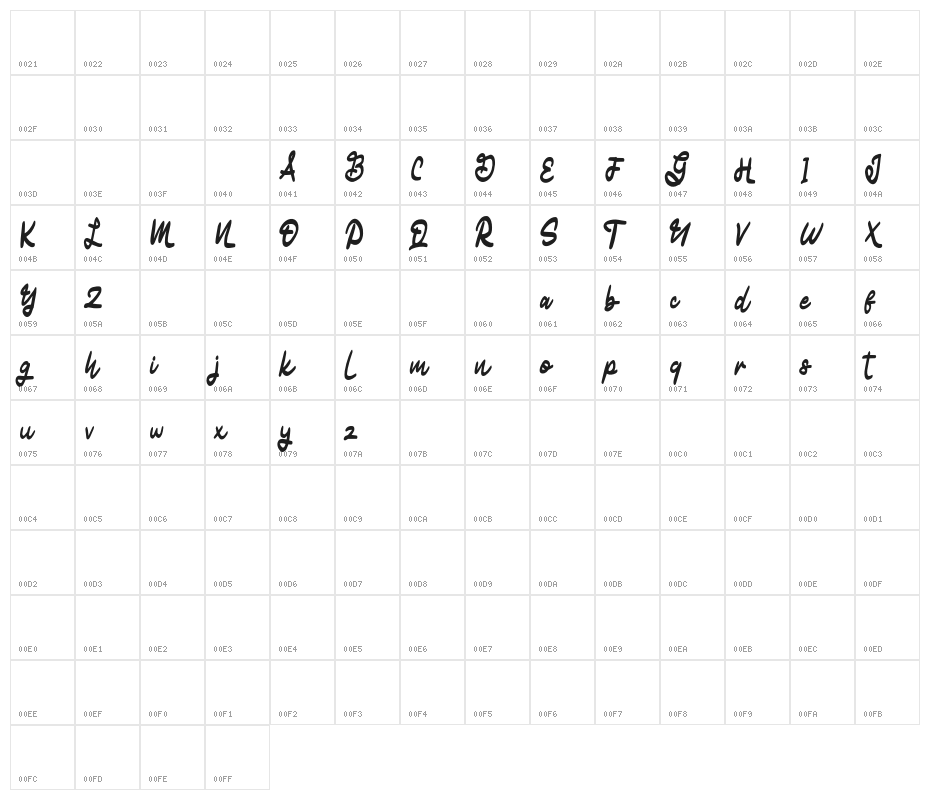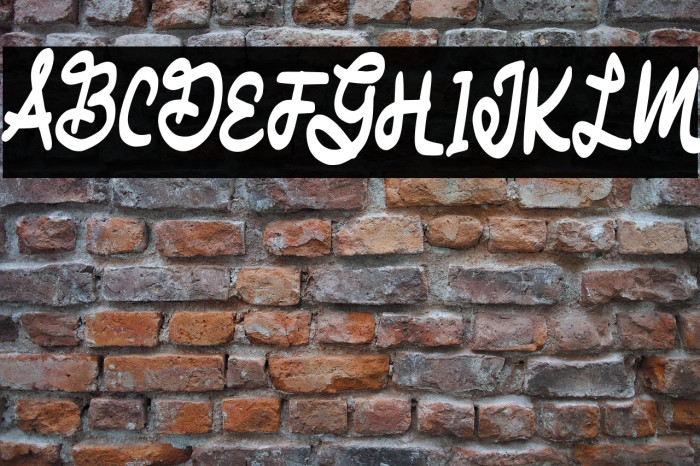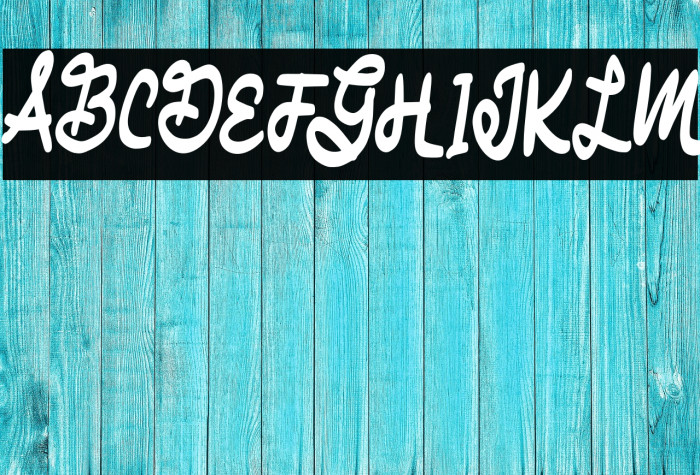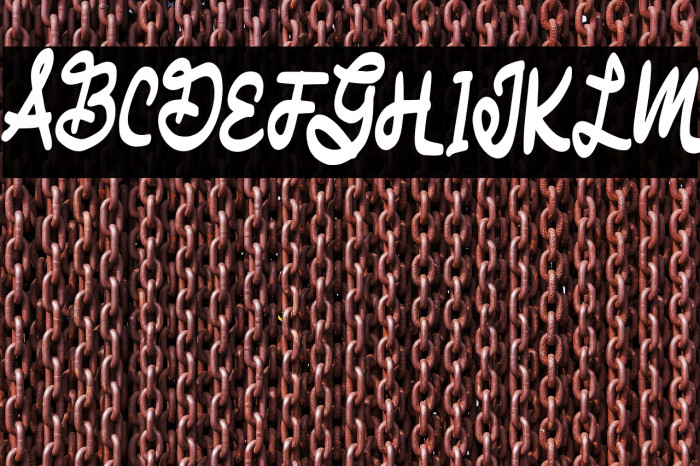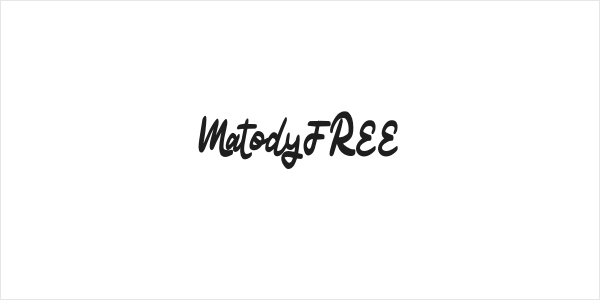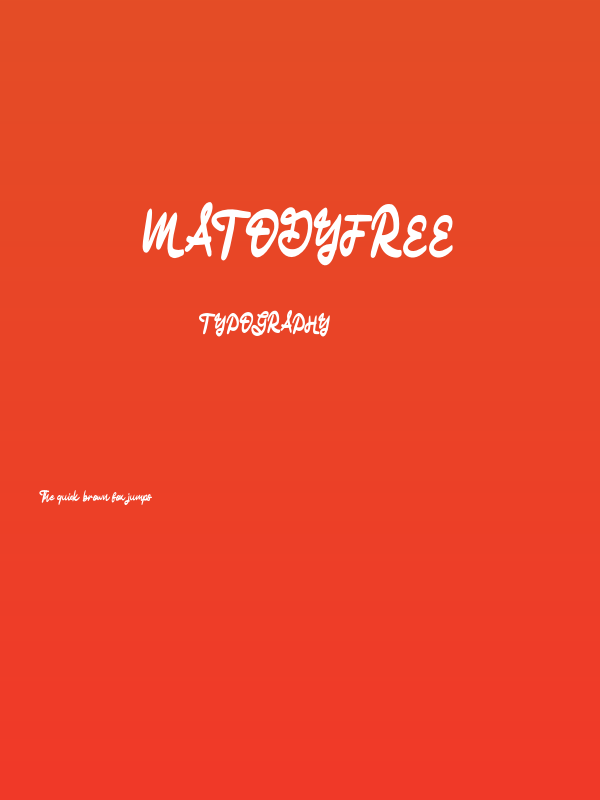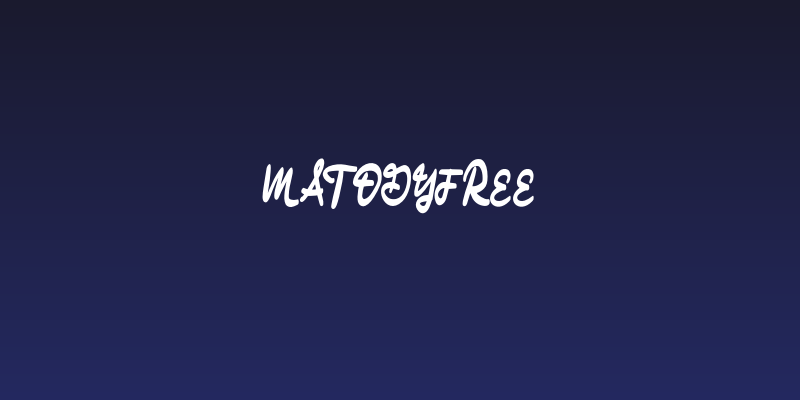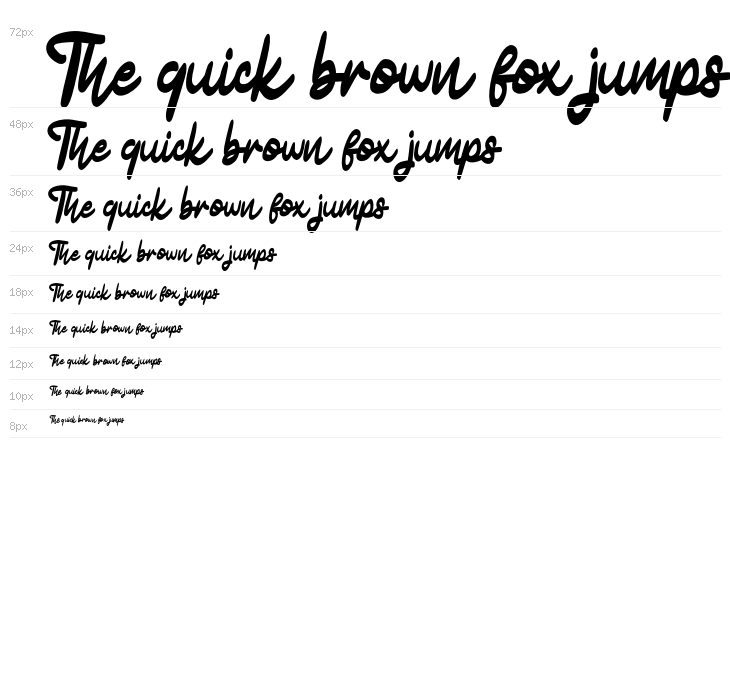
MatodyFREE Font
MatodyFREE Description
This font features a bold and expressive script style, characterized by its flowing, cursive letterforms. The uppercase letters are particularly ornate, with exaggerated loops and swashes that give the font a lively and dynamic appearance. The lowercase letters maintain a consistent style, with smooth connections and rounded forms that enhance readability. The overall design is playful and energetic, making it suitable for creative and informal applications. The font's bold weight and high contrast between thick and thin strokes add to its visual impact, making it stand out in any design.
| Use Case | Logos, Headlines, Invitations |
| Proposed Projects | Ideal for branding, invitations, greeting cards, and creative posters. |